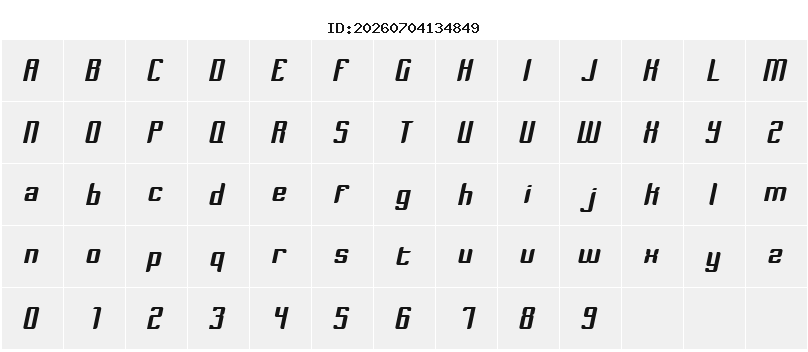
• Font Name: Dymeda
• Manufacturer: TracerTong
About Dymeda.ttf
Dymeda.ttf is a modern, elegant sans-serif font designed for ultimate readability and visual harmony. Perfect for branding, headlines, web design, and print materials.